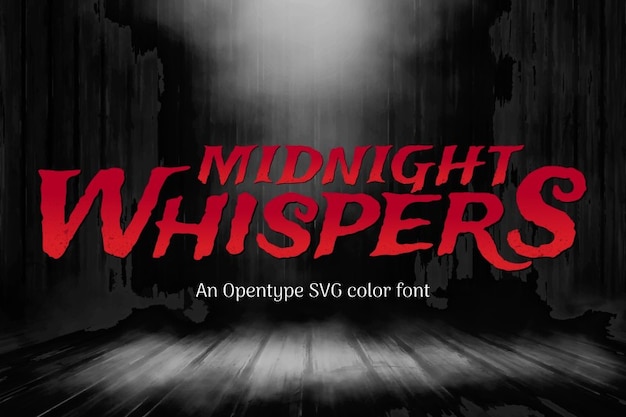
Midnight Whispers font: It's like Halloween night turned into letters! This spooky, decorative typeface is your gateway to the creepy and mysterious. With every character, it weaves the spine-tingling tales of a moonlit night, adding a dash of scary and a whole lot of spooky to your design. Perfect for conjuring some horror-inspired intrigue!